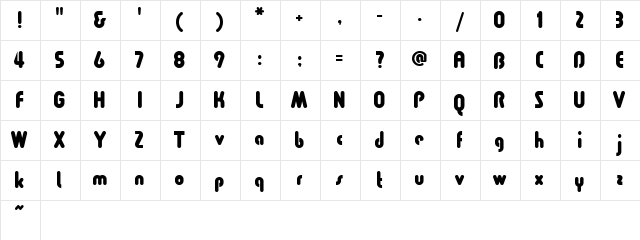
Pollyanna Regular Font Preview
Pollyanna Regular
Pollyanna Regular Font Details
Design Context for Pollyanna Typeface
Pollyanna is a composed and adaptable typeface that performs quietly and consistently across a wide range of design contexts.